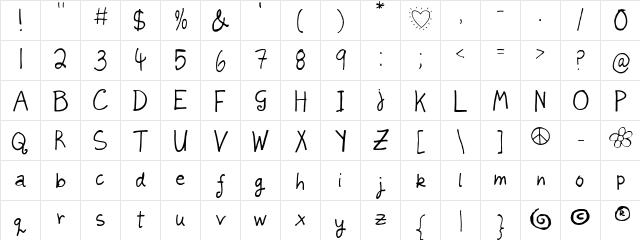
juleswriting Regular Font Preview
juleswriting Regular
juleswriting Regular Font Details
Design Context for juleswriting Typeface
juleswriting takes a measured approach to typography — its balanced proportions and neutral character make it a reliable workhorse for both digital and print work.